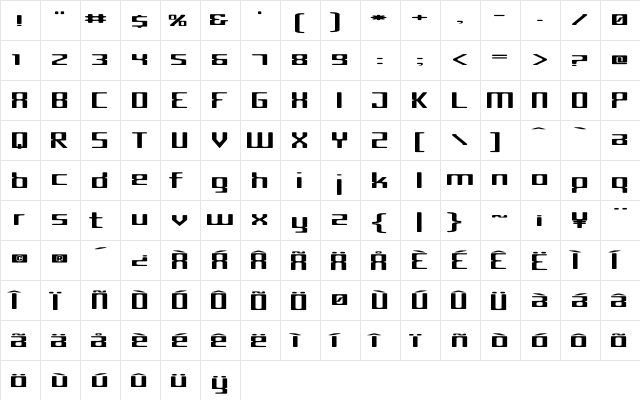
Criminal Wide
Design Context for Criminal Typeface
Criminal is a composed and adaptable typeface that performs quietly and consistently across a wide range of design contexts.